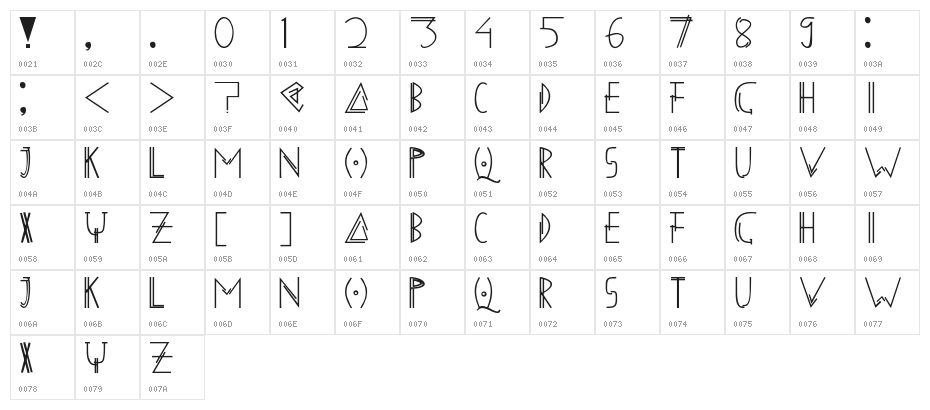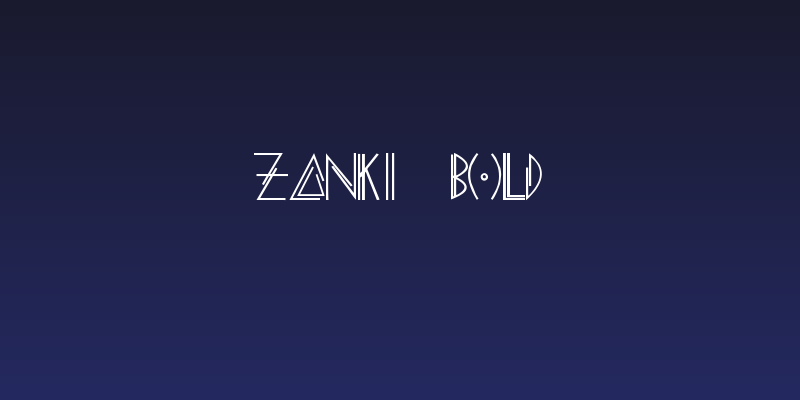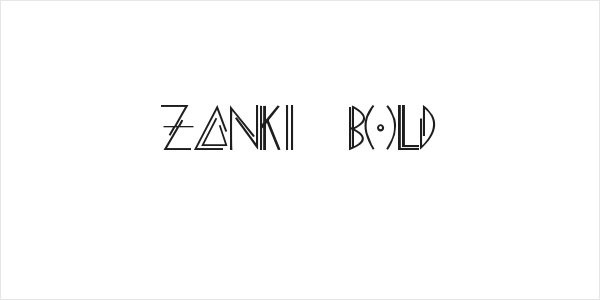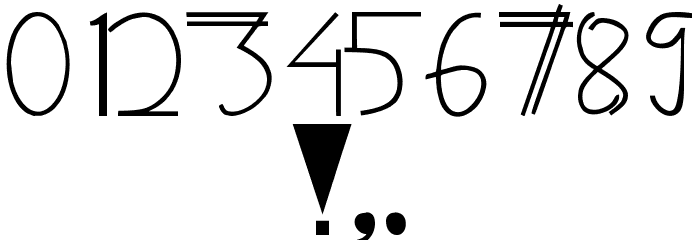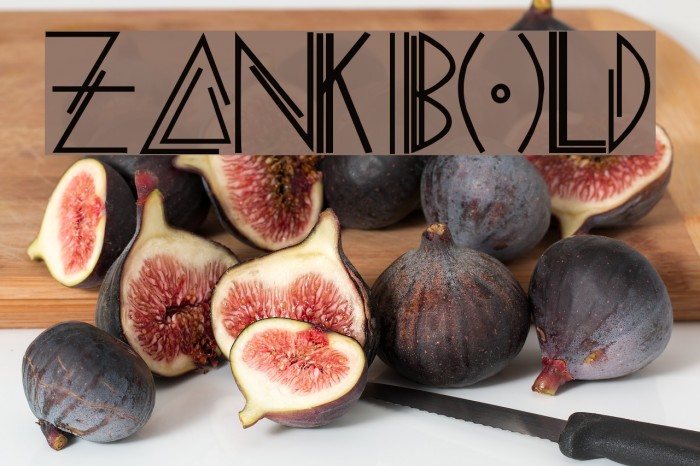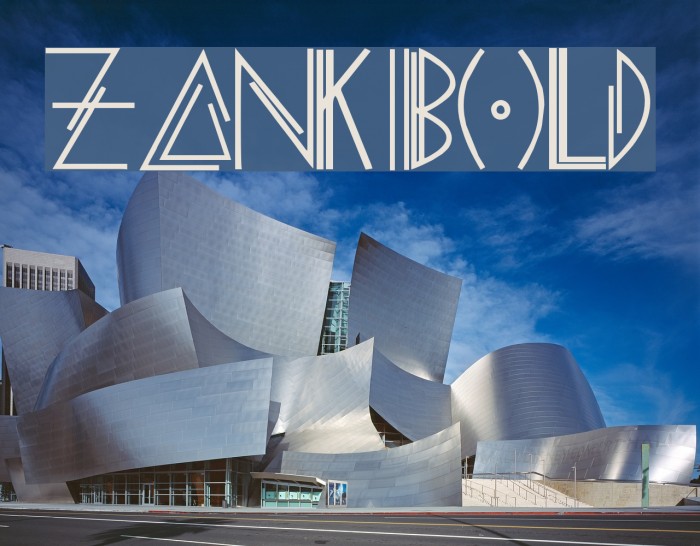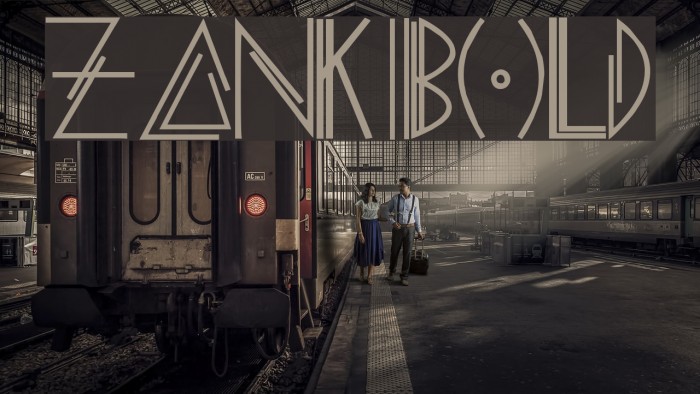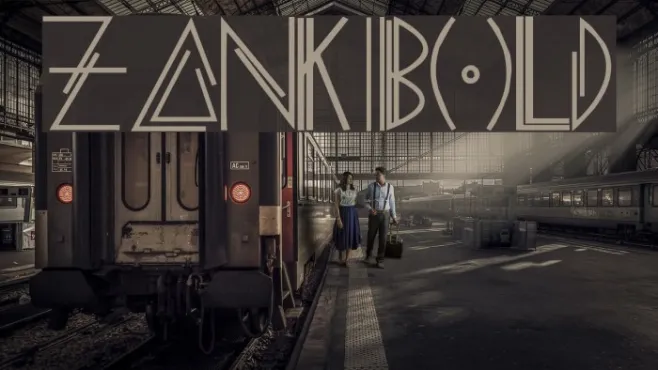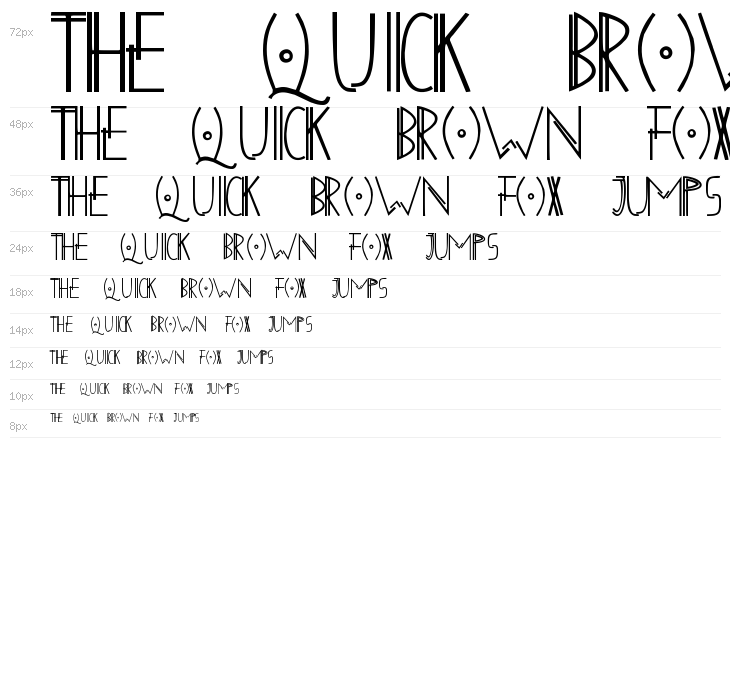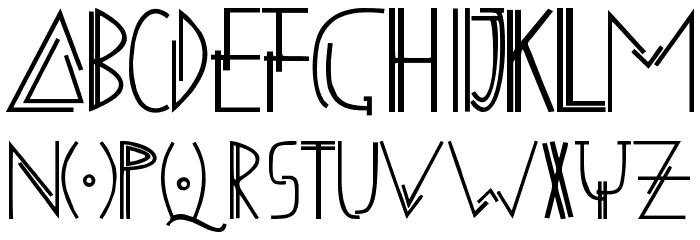
ZANKI-Bold Font
ZANKI-Bold Description
This font features a unique and artistic design with geometric elements and sharp angles. The uppercase letters are characterized by a combination of straight lines and curves, creating a modern and edgy appearance. The lowercase letters maintain the same geometric style, offering a cohesive look across the typeface. Numbers are designed with similar angular and curved elements, ensuring consistency throughout. The special characters, including punctuation marks, are bold and distinctive, adding to the font's overall striking aesthetic. This font is ideal for projects that require a bold and creative touch, making it suitable for headlines, posters, and branding materials.
| Proposed Projects | Ideal for creative projects such as posters, branding, and headlines that require a bold and modern look. |